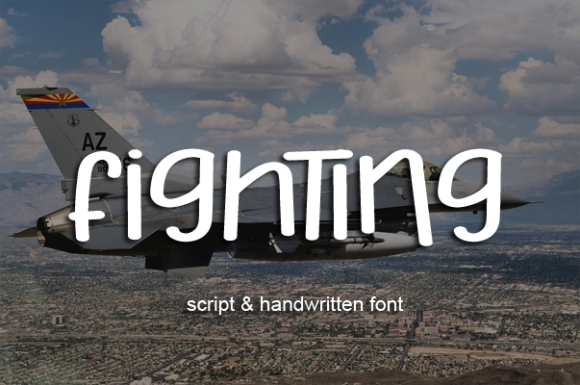
FighTing Font
Download FighTing Font for free! Created by Alfa studio and published by Peter Travis, this script font family is perfect for adding a unique touch to your designs.
We're thrilled to introduce you to FighTing, a breathtaking script font that exudes luxury with every stroke. Created by the renowned Alfa Studio, this font embodies the essence of elegance and sophistication.
Whether you're crafting invitations, designing logos, or creating social media posts, FighTing will elevate your designs to new heights. Its natural and unique style adds a touch of whimsy and charm, making it perfect for capturing attention and leaving a lasting impression.
FighTing is not just another font; it's an investment in your creative journey. Its versatility knows no bounds, making it an essential tool for designers of all levels. Unleash your imagination and let FighTing transform your designs into works of art.
Join countless others who have discovered the power of FighTing. With its undeniable charm and endless possibilities, this font will ignite your creativity and inspire your designs to soar.